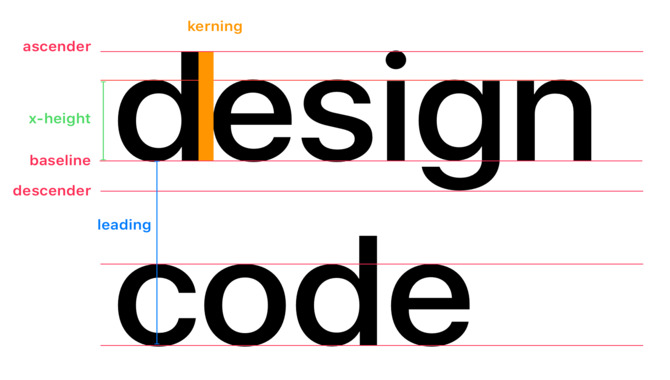
Apple primarily uses the San Francisco font across various platforms and devices. Apple designed San Francisco, a modern sans-serif typeface for optimal screen legibility.
It was first introduced with the Apple Watch and later adopted as the system font for iOS, macOS, and other Apple products. So it is essential to know what font is apple text. People know San Francisco for its clean, elegant, and consistent letterforms, which make it suitable for small and large screens.
It includes different weights and styles, such as San Francisco Regular, Medium, Semibold, Bold, and Ultralight, allowing for flexibility in design and emphasis. The San Francisco font reflects Apple’s commitment to typography and ensuring a harmonious visual experience across user interfaces.
An In-Depth Analysis Of What Font Is Apple Text In 7 Steps
The font used in Apple’s text is primarily San Francisco. It is a modern sans-serif typeface designed by Apple for optimal screen legibility. With its clean and elegant letterforms, San Francisco reflects Apple’s commitment to typography and provides a consistent visual experience across its platforms and devices. Here is a 7 steps guide on what font is Apple text.
1. Observe The Default Font:
The default font used in Apple’s text is primarily San Francisco. Designed specifically for optimal legibility on screens, San Francisco is a modern sans-serif typeface. It has clean and elegant letterforms, with different weights and styles available.
Apple adopted San Francisco as the system font for iOS, macOS, and other platforms, ensuring a consistent and visually pleasing typography experience across their devices.
2. Identify The Platform:
The font used in Apple’s text varies depending on the platform. For iOS, Apple typically uses the San Francisco font, a modern sans-serif typeface optimized for screen legibility. In macOS, the default font is generally Helvetica Neue. Apple’s choice of fonts aims to maintain consistency and provide a visually pleasing experience tailored to each platform’s design principles.
3. Study System Fonts:
Apple primarily uses the San Francisco font for text across its platforms. San Francisco is a modern sans-serif typeface designed by Apple for optimal screen legibility. It offers various weights and styles, providing flexibility in design. The clean and elegant letterforms of San Francisco align with Apple’s commitment to typography and ensuring a cohesive visual experience for users.
4. Look For Branding Fonts:
Apple uses various fonts for branding purposes, including Apple Garamond’s early logo and the custom Myriad font for marketing campaigns. These fonts contribute to Apple’s distinctive visual identity. However, it’s important to note that the primary font used for Apple’s text across platforms and devices in San Francisco is a modern sans-serif typeface designed by Apple for optimal screen legibility.
5. Examine App-Specific Fonts:
When examining app-specific fonts used by Apple, you may find variations from the default system fonts. Apple’s native apps, like Pages or Keynote, may employ unique fonts suited to their specific purposes. These fonts can contribute to a distinct visual identity within the app, allowing for creative typography and enhancing the overall user experience.
6. Check Developer Documentation:
Checking Apple’s developer documentation can provide insights into the recommended fonts for app development. Apple provides guidelines and resources that may specify the preferred typography, including the default fonts for different platforms.
By referring to these resources, developers can ensure consistency with Apple’s design principles and choose appropriate fonts for displaying Apple text within their applications.
7. Research Updates And Changes:
Research updates and changes to determine the font used in Apple’s text is crucial. Apple occasionally introduces new fonts or updates existing ones with system updates or releases. Staying informed with Apple’s announcements and release notes helps track changes and ensures accurate identification of the fonts employed in Apple’s text.
Best Practices For Using Typography In Apple Design
Typography is a critical aspect of design, and Apple has always been known for its elegant and straightforward use of typography in its products. Apple’s design team has established best practices for using typography, which has become an industry benchmark. One essential principle is keeping the typography simple and clean while balancing form and function.
Another essential principle is to use typography consistently across all platforms, maintaining a cohesive look and feel. Apple’s designers ensure the typography is optimized for different screen sizes, resolutions, and orientations. Furthermore, they use a limited number of fonts to maintain a consistent visual identity for Apple products.
Similar Fonts To Apple Text
- Helvetica Neue: Helvetica Neue shares similarities with San Francisco and has been a popular font choice for Apple in the past. It features a clean, modern design and is available in various weights.
Ans: Apple provides the San Francisco font free to developers and designers through the Apple Developer website.
4.Does Apple Use Different Fonts In Different Regions Or Languages?
Ans: Apple often adjusts typography and font choices to accommodate different languages and regions. This may involve using localized fonts or adapting the San Francisco font to suit specific character sets.
5.Can I Use San Francisco As A Web Font?
Ans: Apple provides a web font version of San Francisco called “SF Pro.” It can be used in web design by referencing the font files in the CSS code.